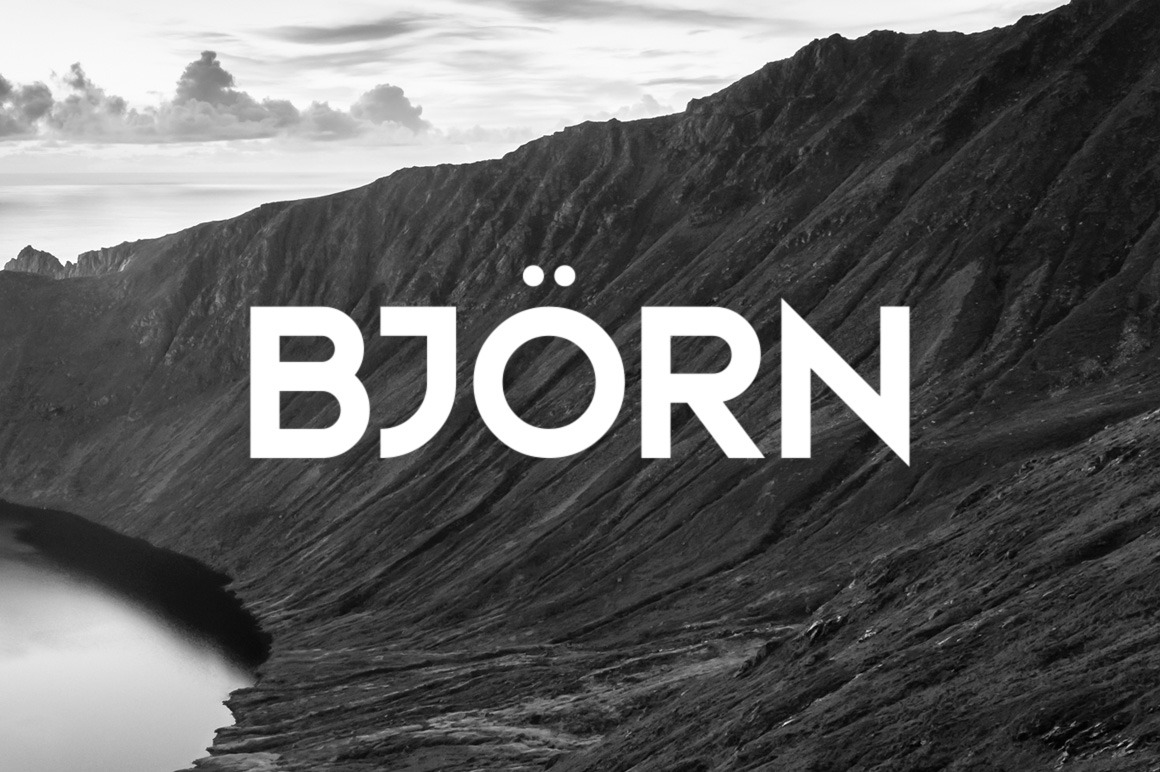
Bjorn Typeface
Bjorn is a sans serif display typeface with sharp corners. It's a very versatile typeface that works great in large and small sizes, tight and wide spacing.
Bjorn features uppercase multilingual letters, numbers and punctuation. It comes in regular, light and halftone styles.